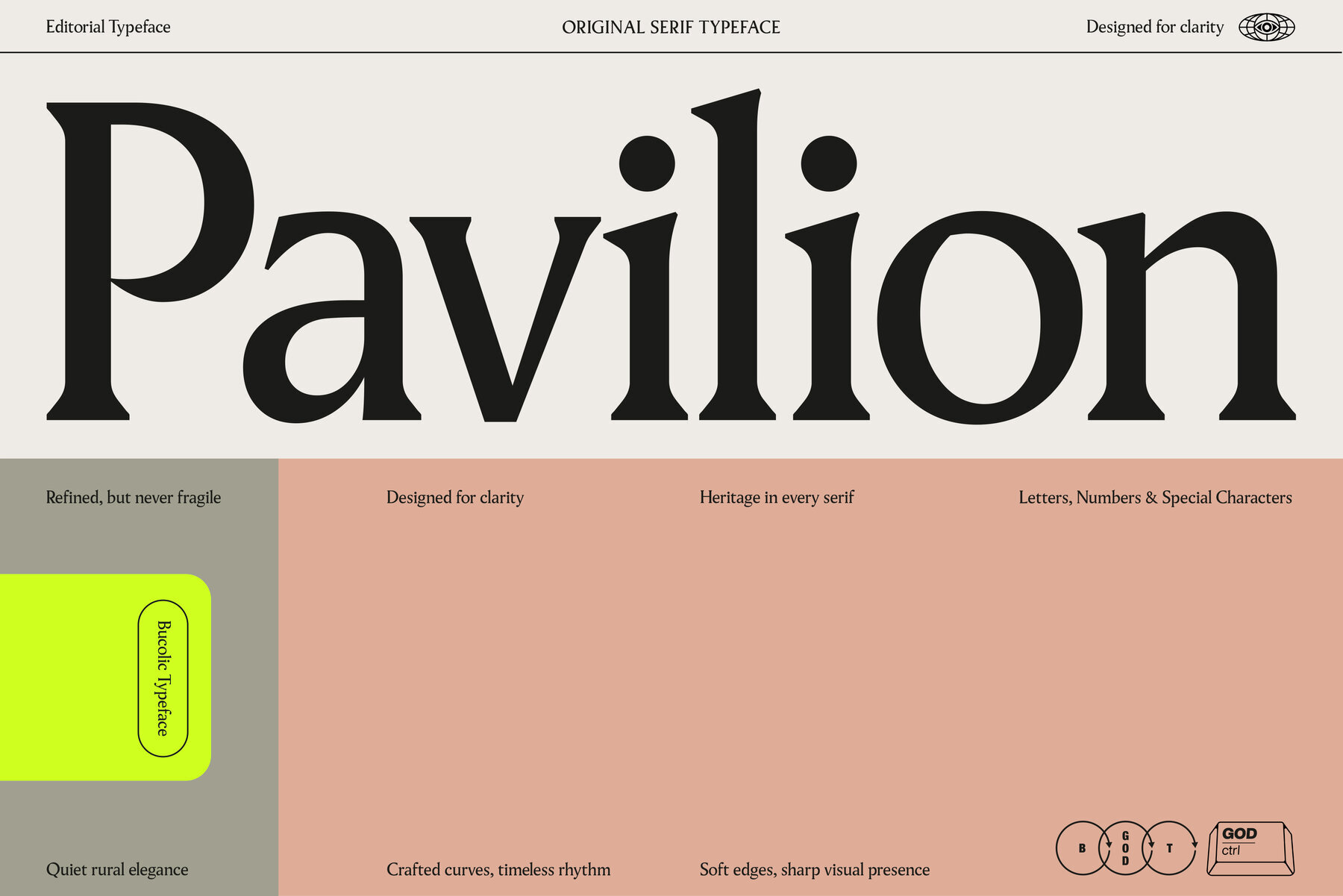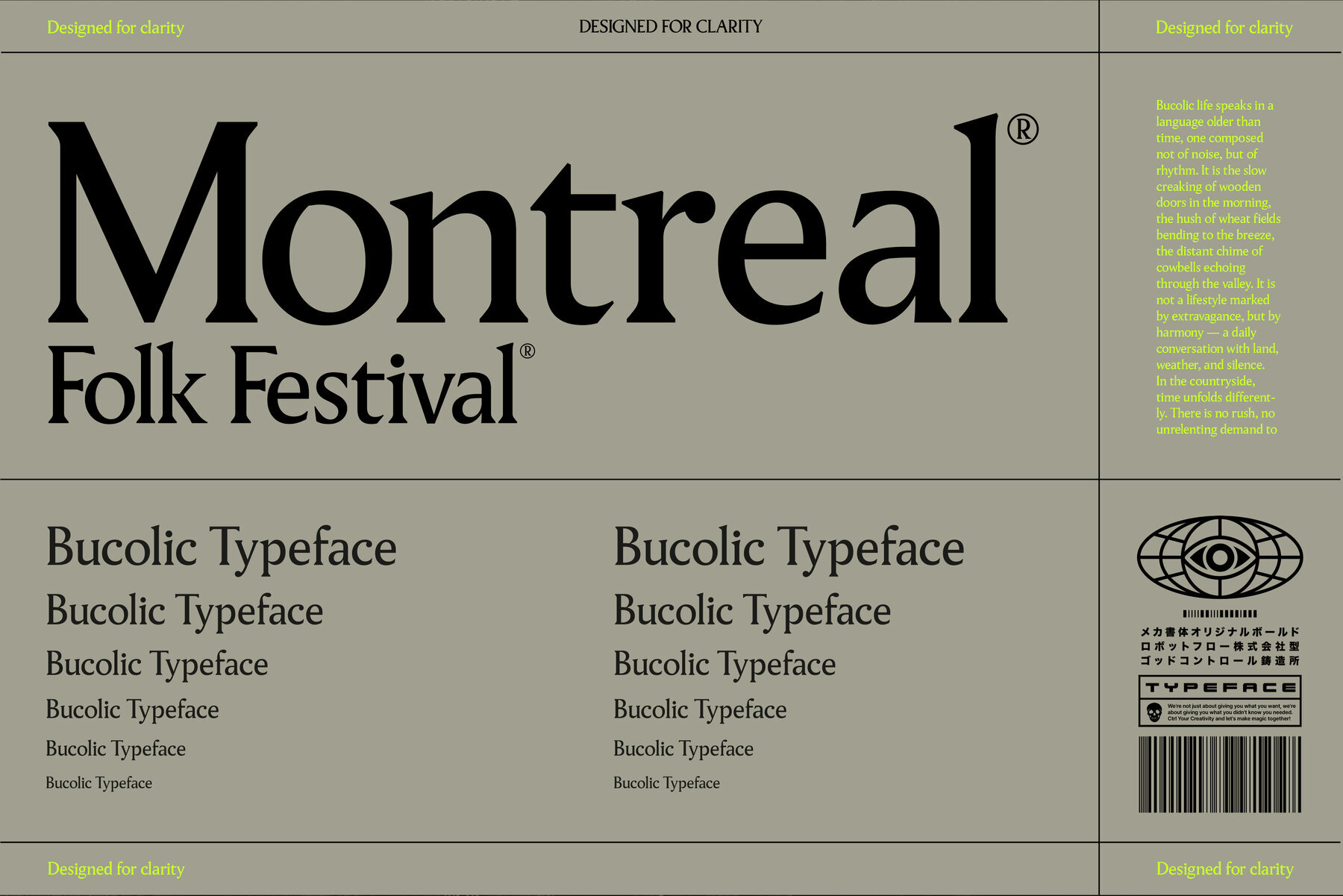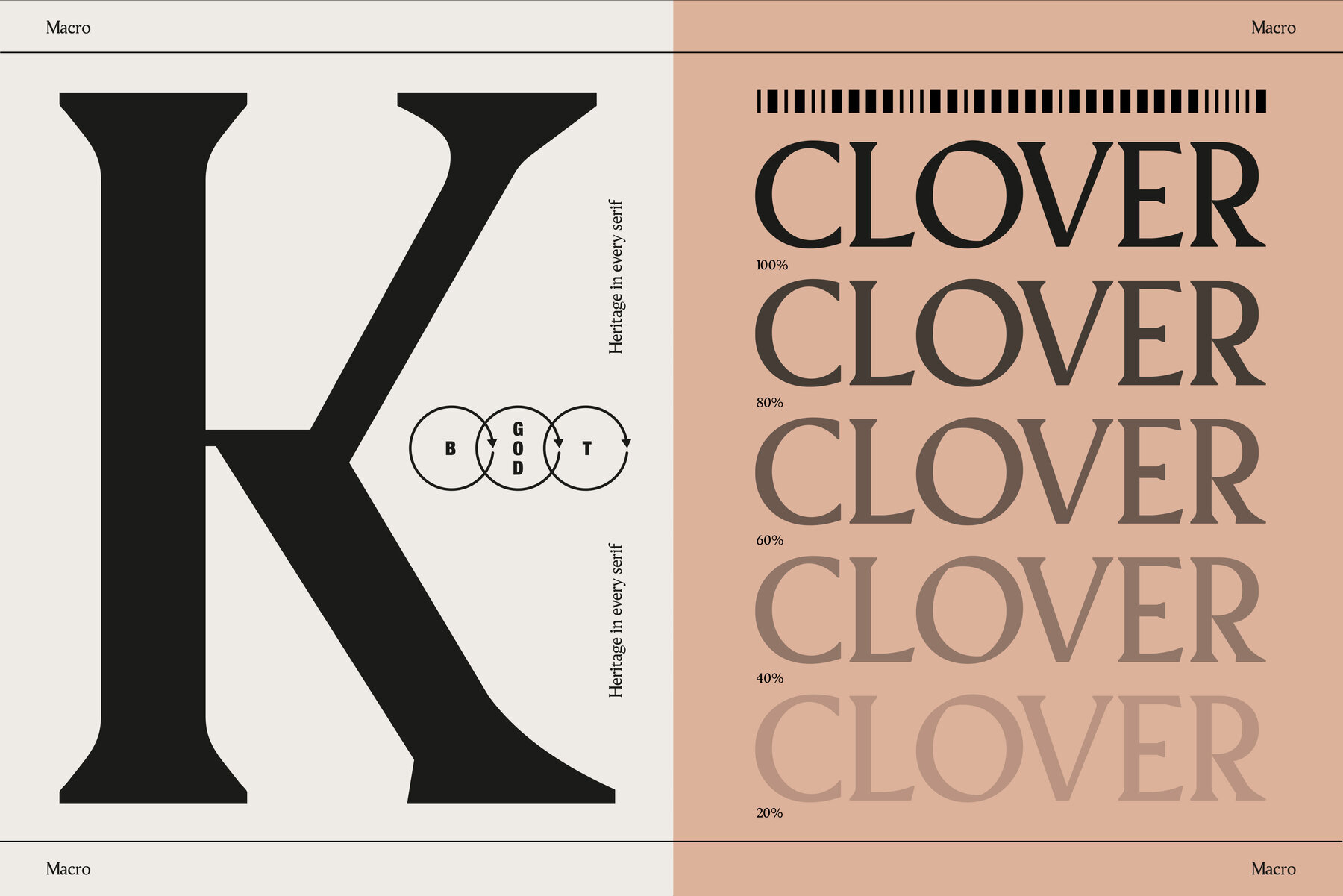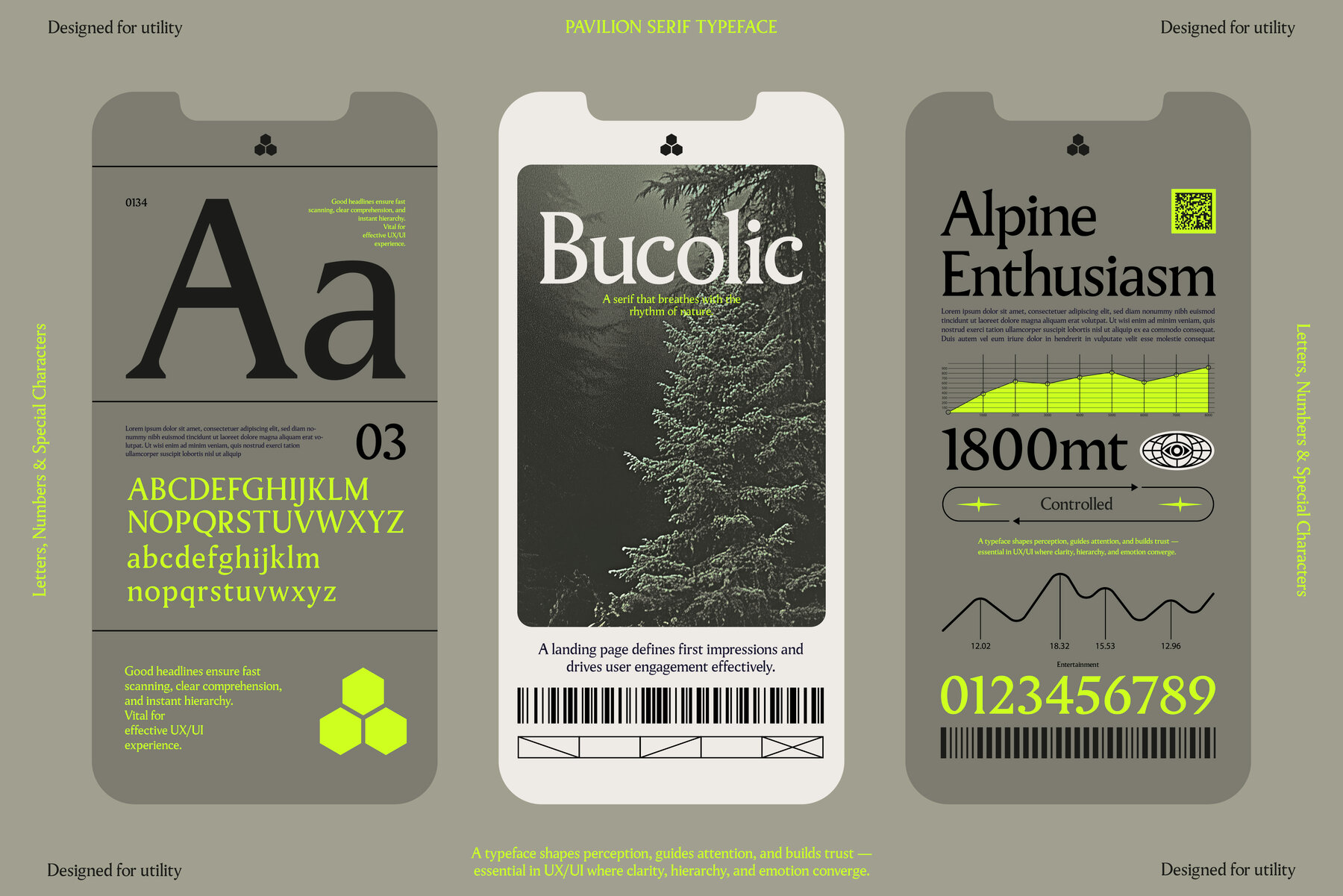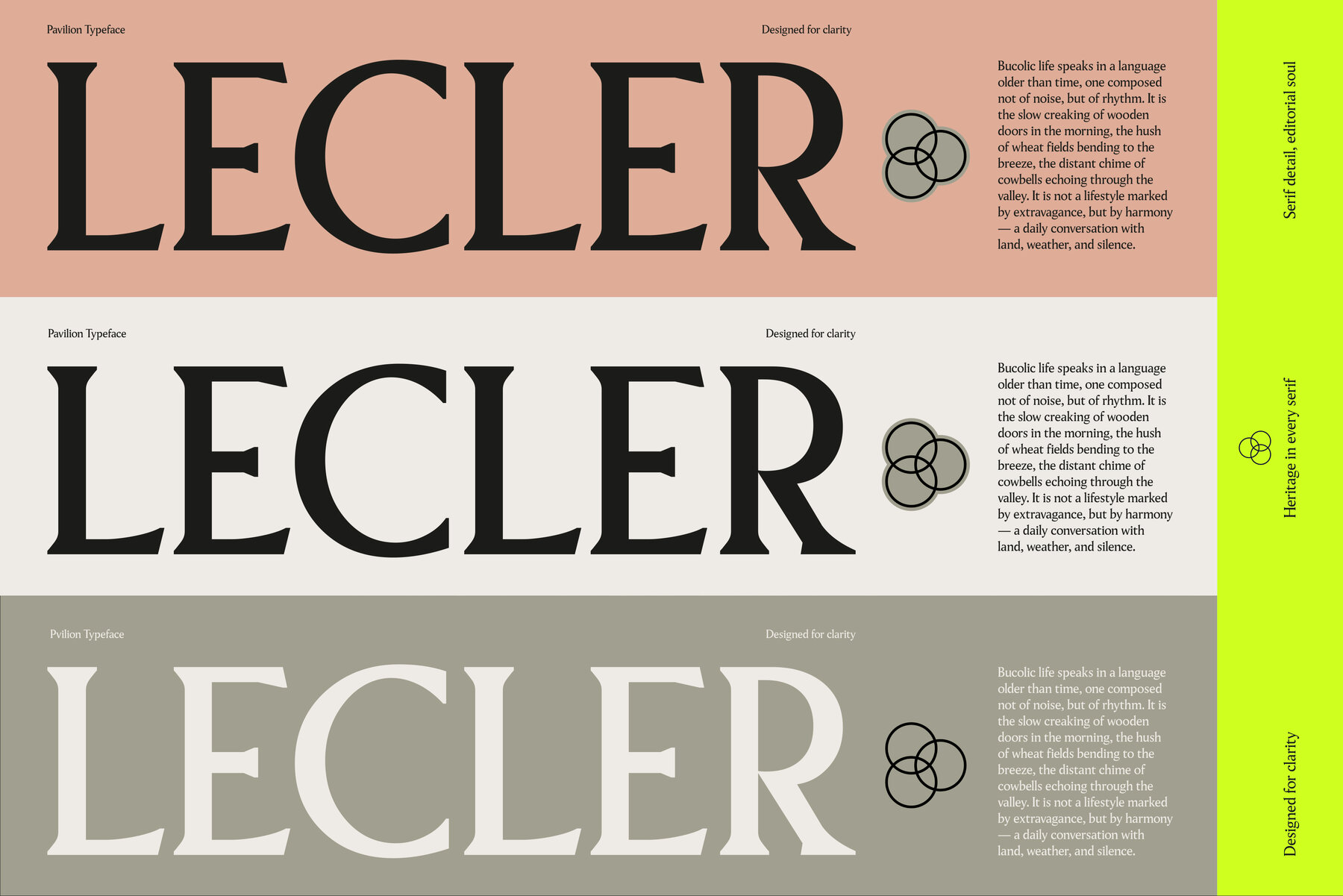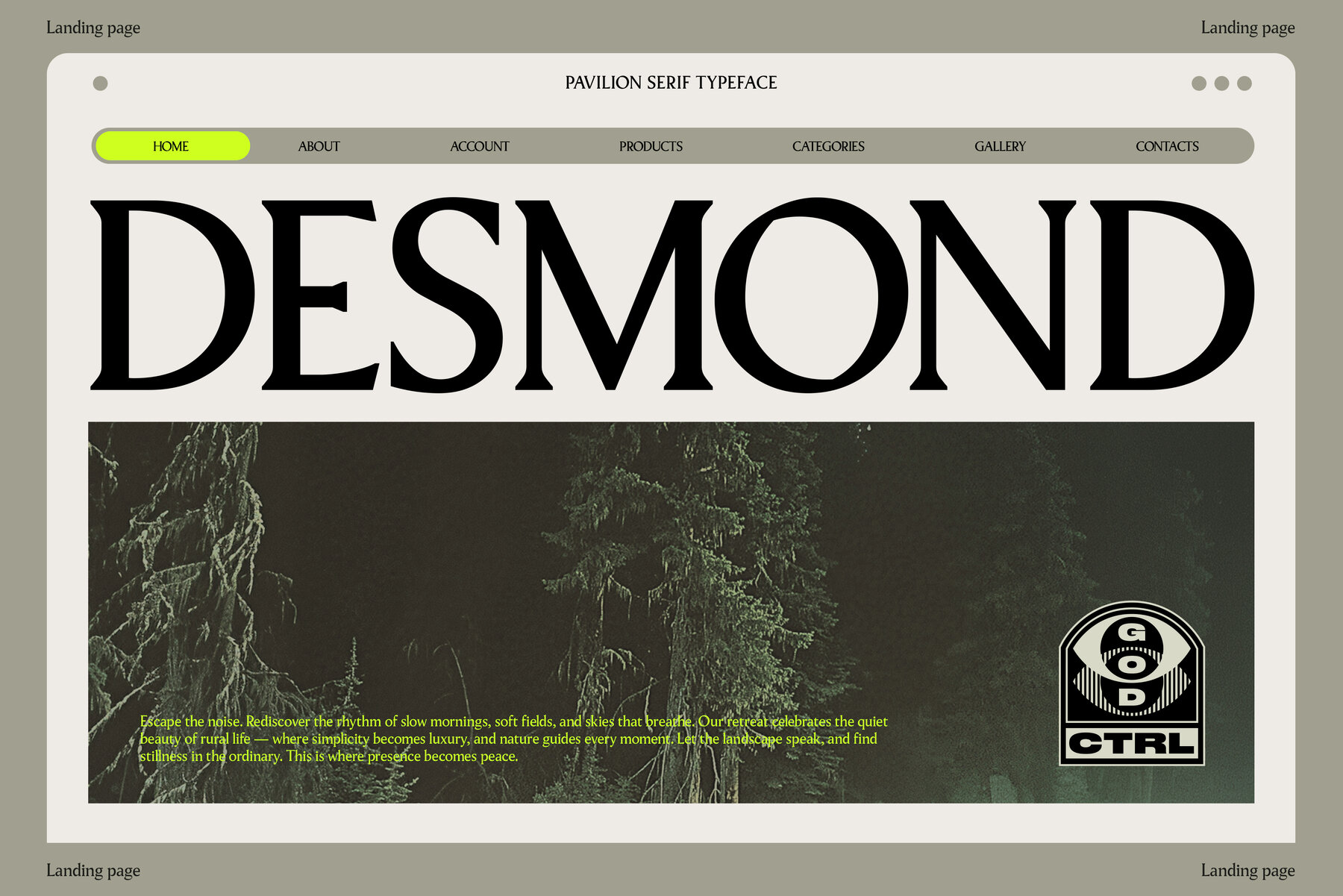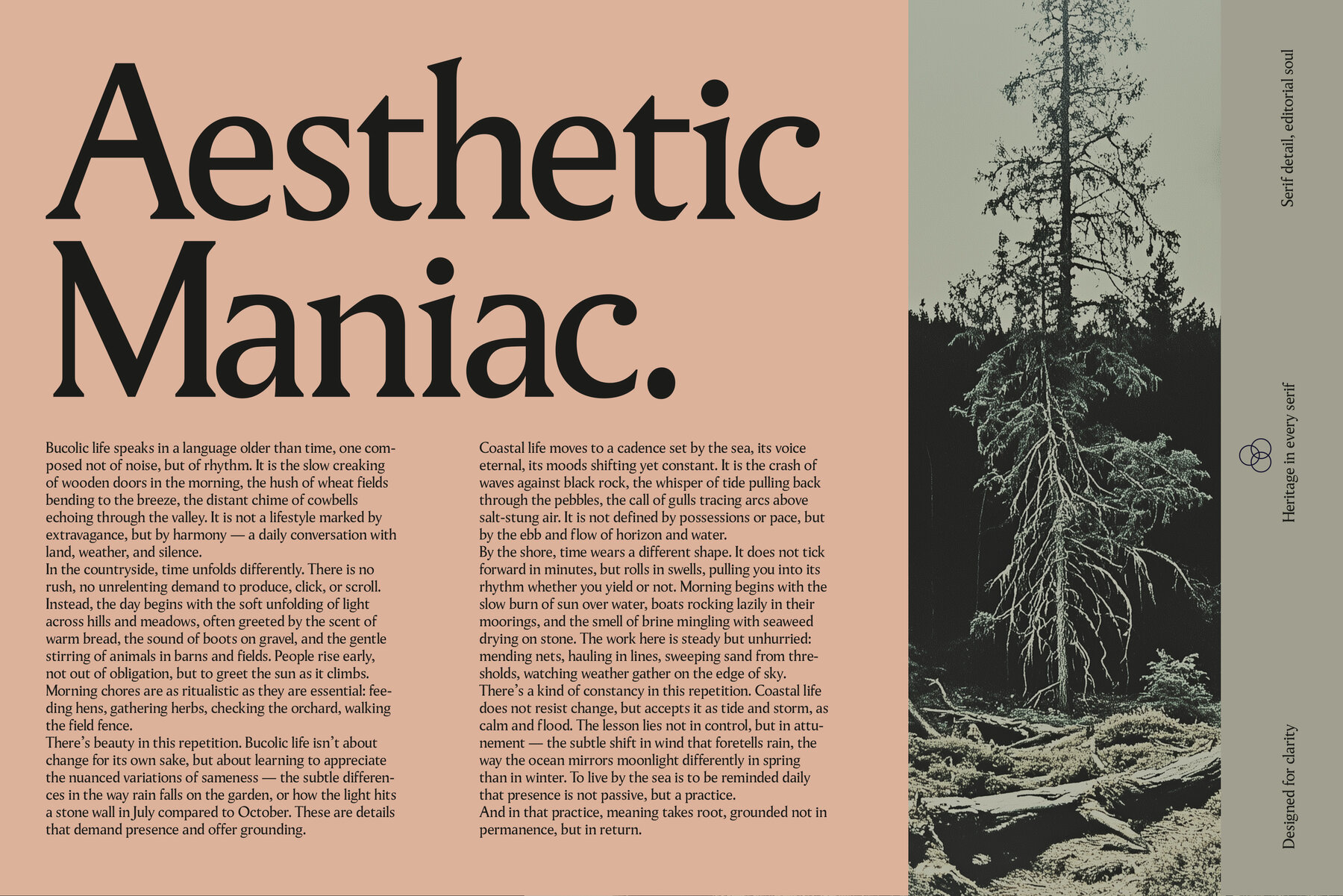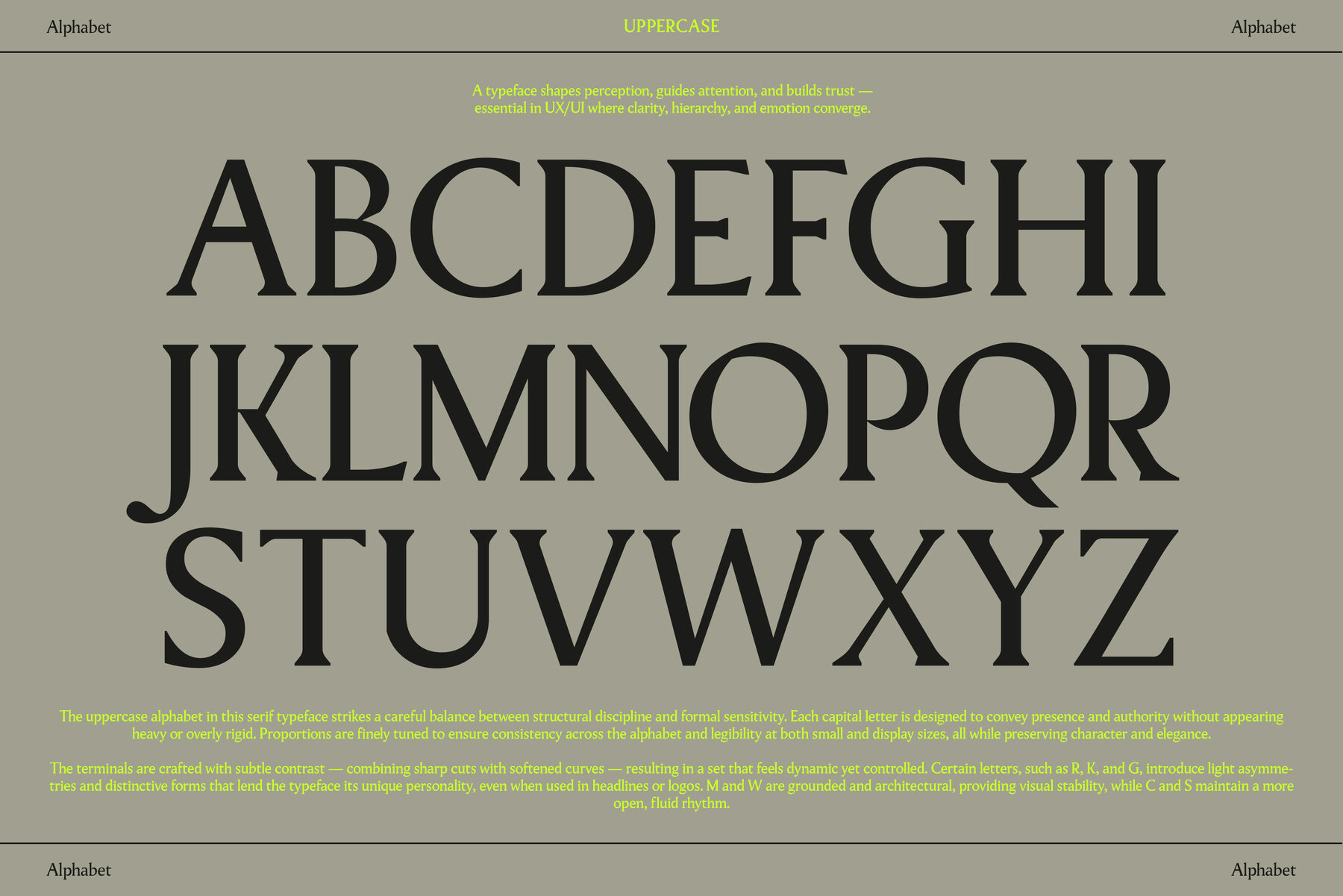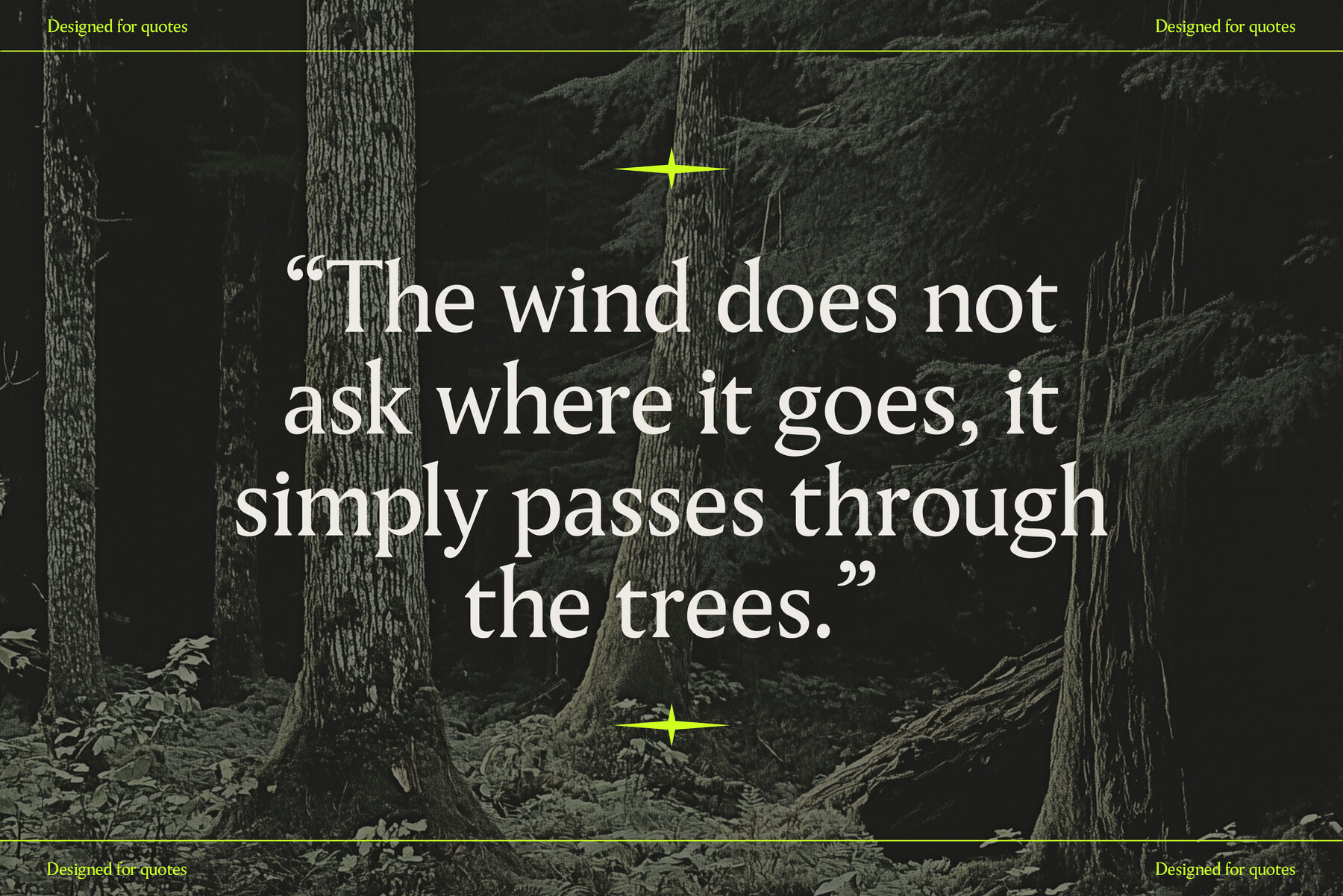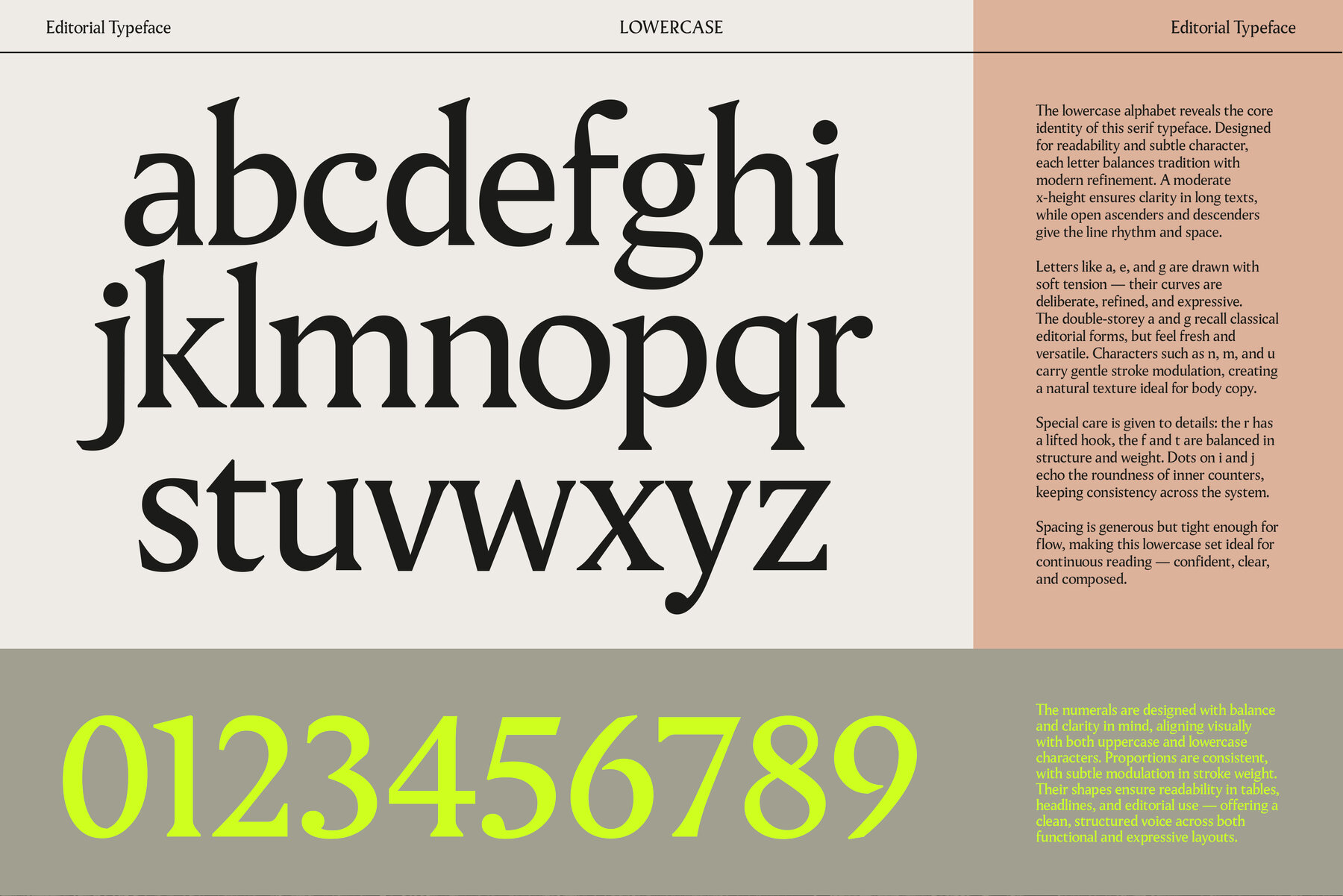
Pavilion Font
Pavilion Serif: Where Tradition Meets Modern Elegance
Pavilion brings a harmonious blend of classic sophistication and contemporary flair, embodying a unique balance perfect for diverse design needs. Crafted with purpose, each curve and cut forms a seamless rhythm, enhancing readability for long-form text while injecting energy into titles and headlines.
The lowercase letters showcase gentle curves, meticulous spacing, and an ideal x-height that ensures smooth reading. Each character is engineered for flow and consistency. The uppercase letters are designed to be strong and bold yet maintain a sense of delicacy.
• Versatile for both body text and headlines
• Perfect for magazines, packaging, and digital applications
• Smooth readability with energetic impact